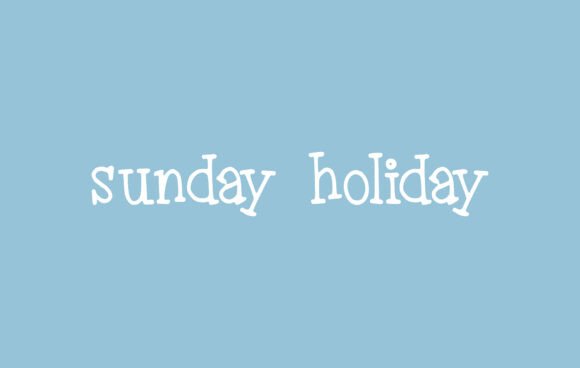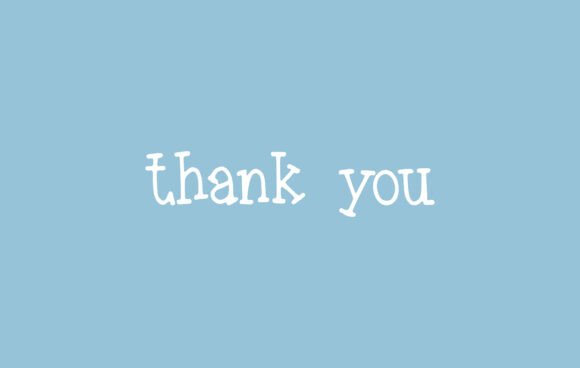
Cybernova Font: Elevate Your Designs with a Romantic Touch
In the world of typography, fonts play a crucial role in conveying the tone and personality of a design. For designers and crafters looking for a unique and romantic touch, CyberNova font is an excellent choice. This authentic handwritten font is expertly designed to capture the hearts of creative enthusiasts and take their ideas to new heights.
What Makes CyberNova Font Special?
CyberNova font boasts a distinctive romantic touch that sets it apart from other fonts. Its authentic handwritten style gives it a personal and intimate feel, making it perfect for designs that require a touch of elegance and sophistication. The font’s legibility is another significant advantage, making it suitable for use as both title and body text.
One of the most significant benefits of CyberNova font is its versatility. It can be used for a wide range of design projects, including:
- Magazine headlines: Add a touch of romance and sophistication to your magazine covers with CyberNova font.
- Social media graphics: Create engaging social media posts and stories with this beautiful font.
- Branding: Establish your brand’s identity with a unique and memorable font.
- Wedding invitations: Make your wedding invitations truly special with CyberNova font’s romantic touch.
- Cards: Design beautiful greeting cards for special occasions.
Why Designers and Crafters Love CyberNova Font
Designers and crafters love CyberNova font for several reasons:
- Unique style: CyberNova font has a distinctive romantic touch that sets it apart from other fonts.
- Legibility: The font is easy to read, making it perfect for use as both title and body text.
- Versatility: CyberNova font can be used for a wide range of design projects.
Tips for Using CyberNova Font
To get the most out of CyberNova font, here are some tips:
- Pair it with other fonts: Combine CyberNova font with other fonts to create a unique and visually appealing design.
- Experiment with colors: Try out different colors to find the perfect match for your design.
- Use it for headlines and body text: Take advantage of the font’s legibility and use it for both headlines and body text.
CyberNova font is a beautiful and versatile font that can elevate your designs to new heights. Its unique romantic touch, legibility, and versatility make it perfect for a wide range of design projects. Whether you’re a designer or crafter, CyberNova font is an excellent choice for anyone looking to add a touch of elegance and sophistication to their work.